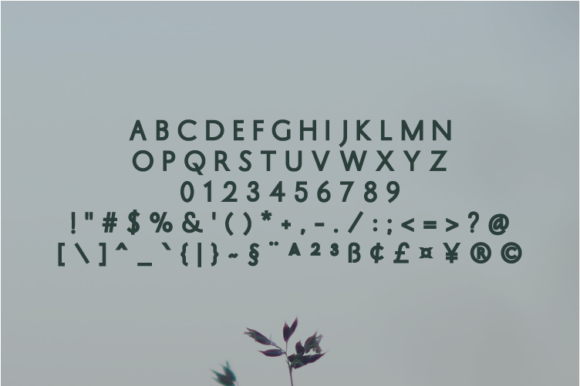
Introduction to Lineque Font
Lineque is a beautiful and strong sans serif font.
Whether you’re looking for fonts for Instagram or calligraphy scripts for DIY projects, Lineque will turn any creative idea into a true piece of art .
Key Features of Lineque Font
Why Choose Lineque Font?